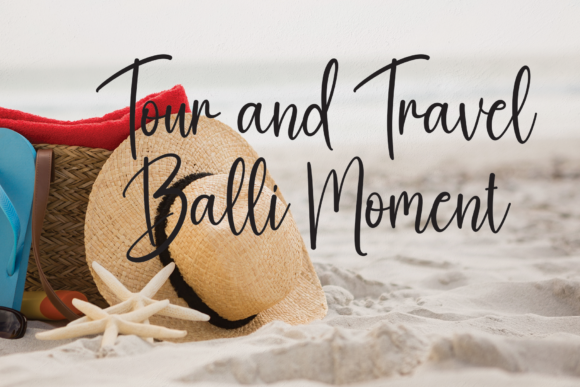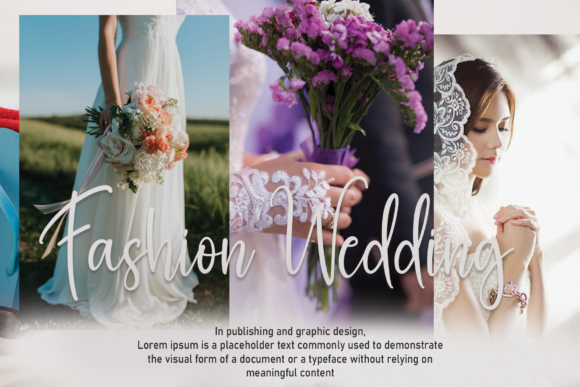
Stella Font
db-ku.com - Script & Handwritten -- Stella is a modern and professional handwriting font that you can use for wall displays, wedding invitations, social media post logos, advertisements, product packaging, product designs, labels, photography, watermarks, invitations, stationery, and more.